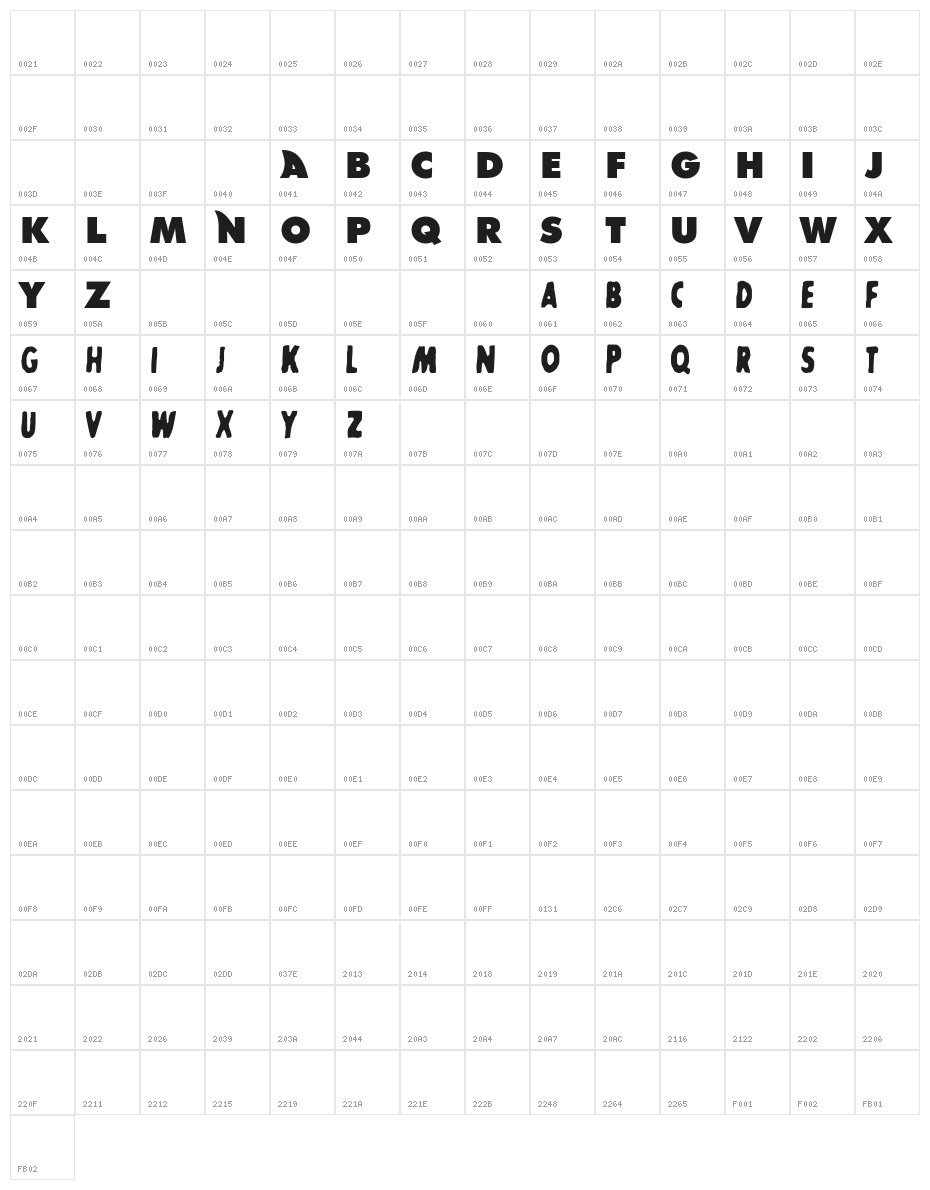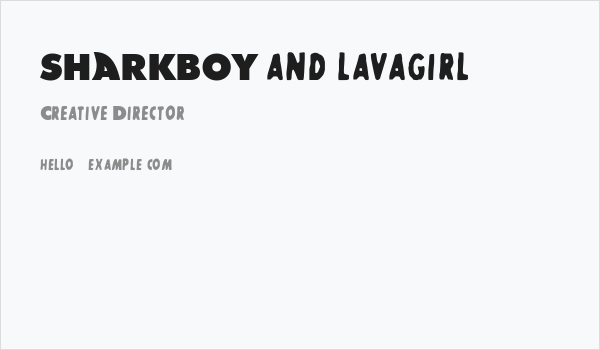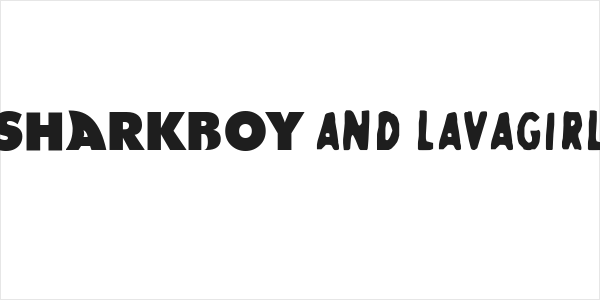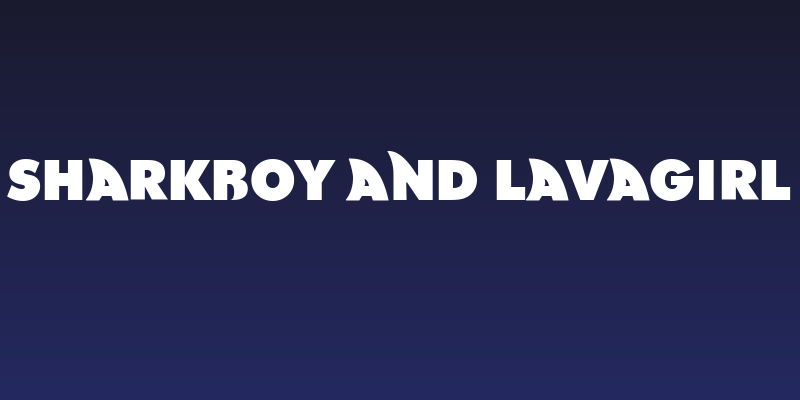
SHARKBOY and lavagirl Font
SHARKBOY and lavagirl Description
This bold and dynamic font features a strong, impactful presence with its thick, solid strokes and slightly condensed letterforms. The uppercase letters are designed with a modern flair, showcasing a geometric influence that adds a sense of stability and strength. The font's clean lines and uniform stroke width make it highly legible, even at smaller sizes. Its boldness is complemented by a slight curvature in certain letters, adding a touch of uniqueness and character. This font is ideal for projects that require a commanding and confident visual impact.
| Proposed Projects | Ideal for headlines, posters, branding, and any design requiring a strong visual impact. |